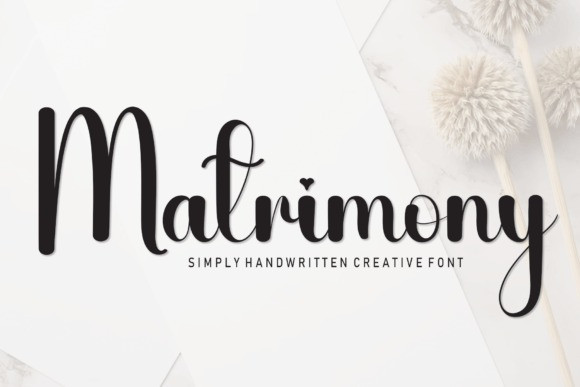
Matrimony Script Font
Matrimony Script Font is a sweet and friendly handwritten font. Fresh and neat, this font is ideal for writing wedding invitations, cards, or any other design that might need a fun touch!